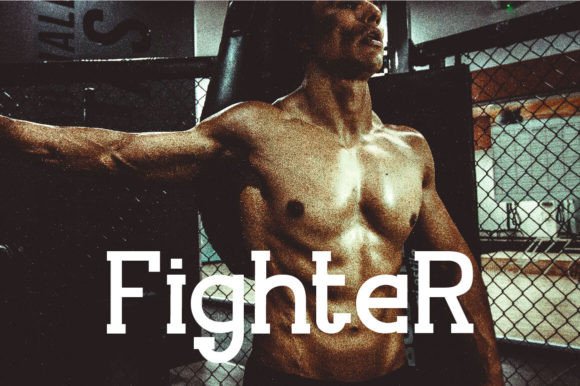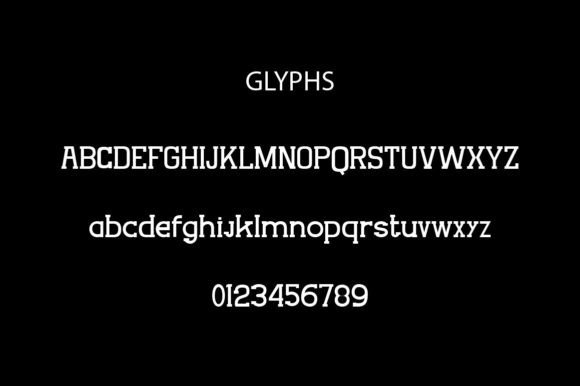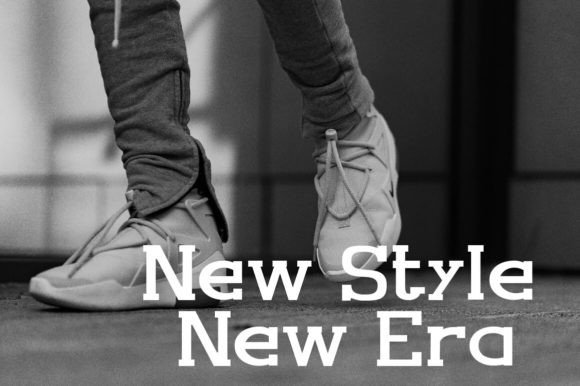
Introduction to Losser Font
Do you ever find yourself scrolling through a design project, staring at the same old font combinations, wishing there was something that could elevate your creation to the next level? That’s where the Losser Font comes in – a bold and assertive slab serif font that’s sure to take your designs to new heights.
Whether you’re working on a creative project, a marketing campaign, or a simple design element, the Losser Font has the potential to be an incredible asset to your design resource library. With its high quality and versatile design, it’s the perfect addition to any designer’s toolkit.
What sets the Losser Font apart is its ability to work seamlessly with transparent backgrounds, making it a valuable tool for designers who want to create eye-catching and professional-looking designs. And the best part? It’s available for free download, so you can start experimenting with it right away.
- High-quality design resource with a transparent background, ideal for creative projects
- Features a unique, modern design that can add a touch of sophistication to any creative project
Honest Review: Losser Font
As a designer, I’m always on the lookout for high-quality design resources that can elevate my creative projects. Recently, I stumbled upon the Losser Font, and I must say it’s been a game-changer. The Losser Font is a versatile font that’s perfect for any project, from logos to typography-heavy designs.
What works well: ✨ The font’s sleek and modern design makes it perfect for contemporary projects. The Losser Font is also highly customizable, allowing me to tweak the font to fit my design needs. Additionally, the free download option is a major plus, making it accessible to designers of all levels.
What doesn’t: ⚠️ While the Losser Font is high quality, it can be a bit challenging to use on transparent backgrounds. The font’s opacity settings can be a bit finicky, which may require some trial and error to get right.
Overall impression: I’m thoroughly impressed with the Losser Font. It’s a fantastic design resource that’s sure to elevate any creative project. With its sleek design, high quality, and free download option, it’s a must-have for any designer’s toolkit.
- Losser Font is a highly customizable font, perfect for designers who want to add a personal touch to their projects.
The Losser Font is a versatile and stylish design resource that can elevate your creative project with its unique, hand-drawn aesthetic. To get started, you’ll need to download the font from a reputable source and install it on your computer.
The Losser Font is ideal for use in creative projects such as branding, marketing materials, and graphic design. Its unique, hand-drawn aesthetic makes it a great choice for projects that require a touch of personality and style.